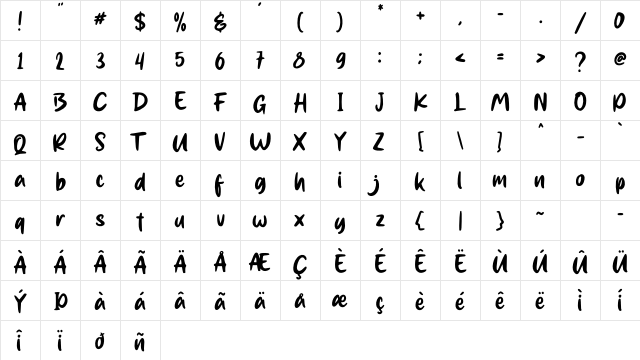
Child Hood Style Regular
| Foundry | Allmostudio |
| Designer | Muhammad Nur Alamsyah |
Design Context for Child Hood Style Typeface
Child Hood Style has an approachable, lighthearted character — its loose, expressive forms are well-suited to children's content, casual branding, and fun-first design.
Font Pairing: Pairs well with a rounded or humanist sans for body copy, maintaining the friendly tone without relying on Child Hood Style to carry extended reading.
Pro Tip: Use Child Hood Style at larger display sizes where its expressive character can land. Pair with a clean, simple sans for body copy to maintain readability.